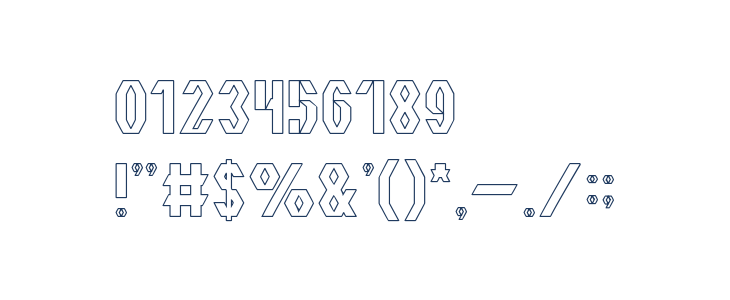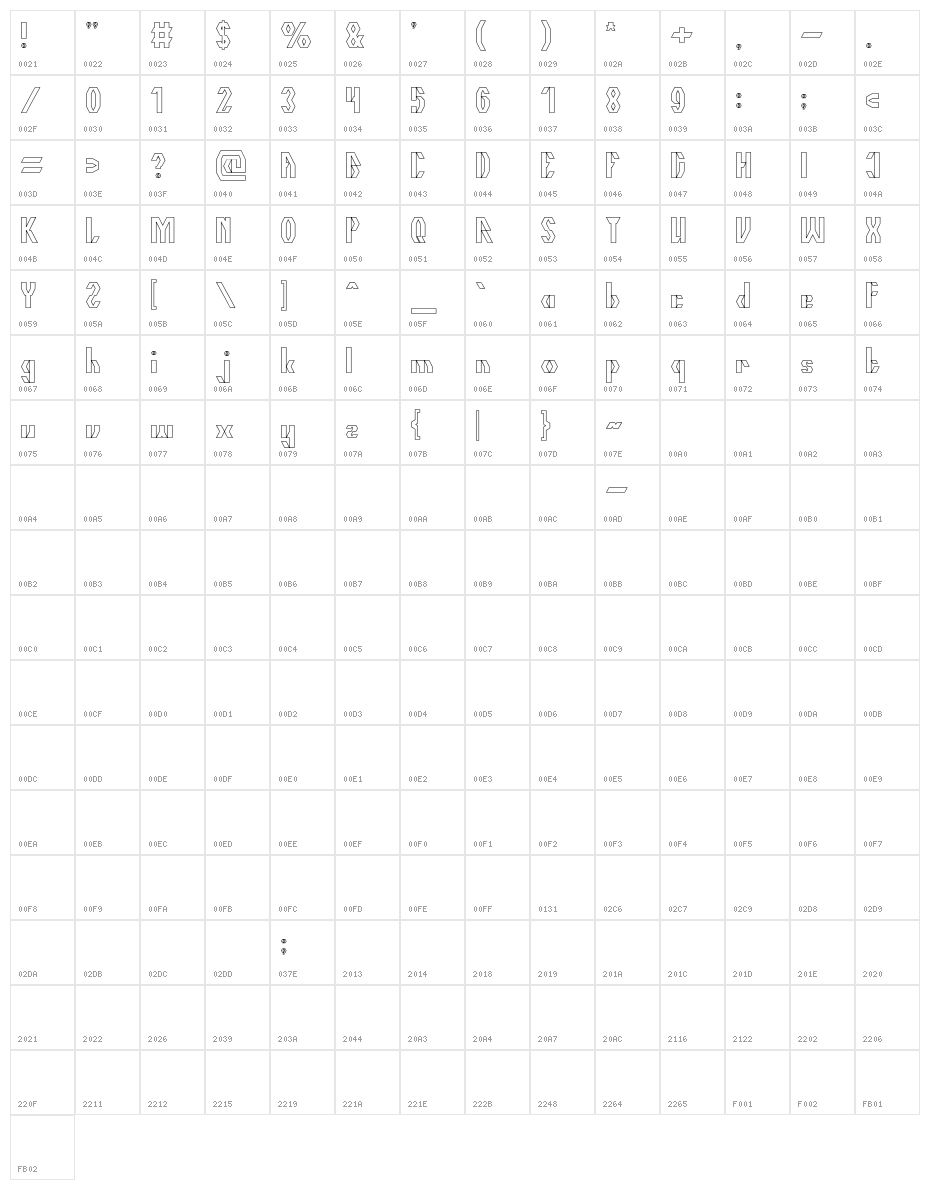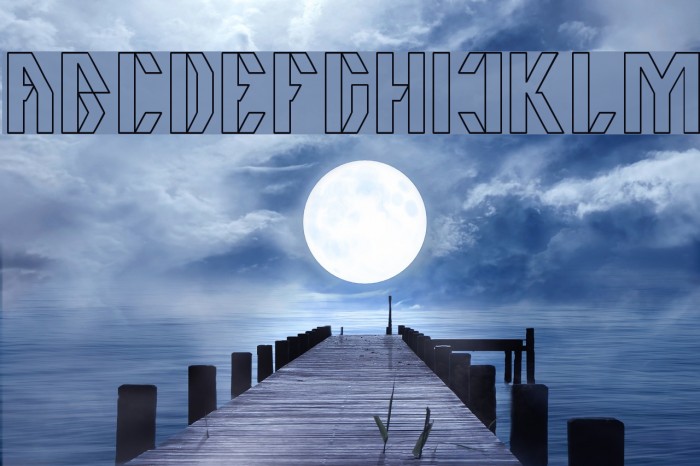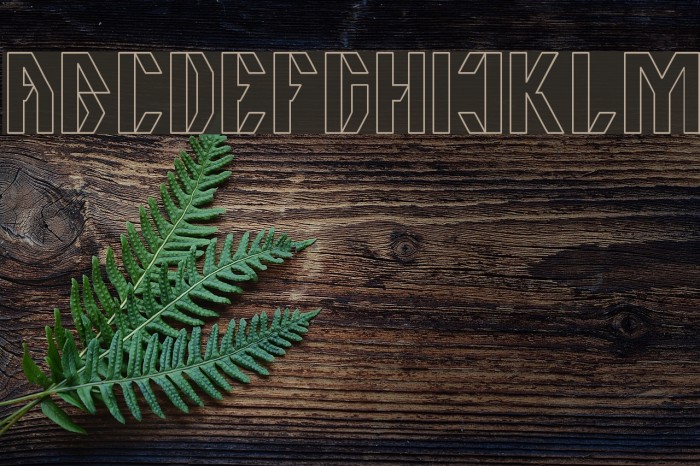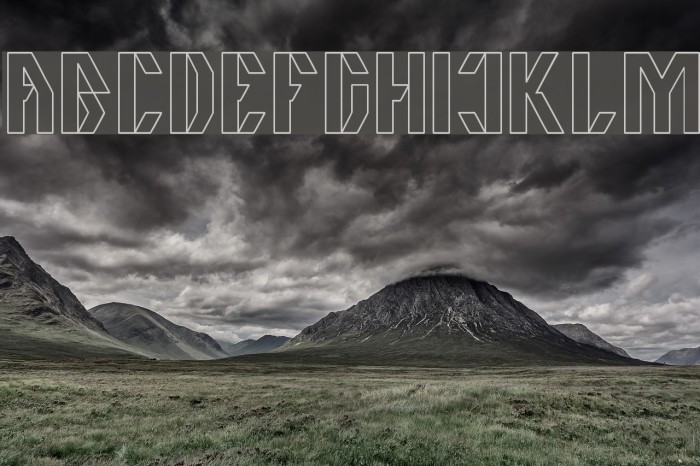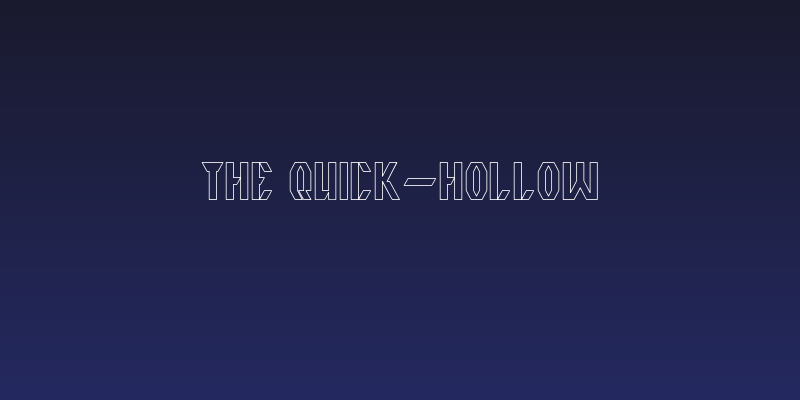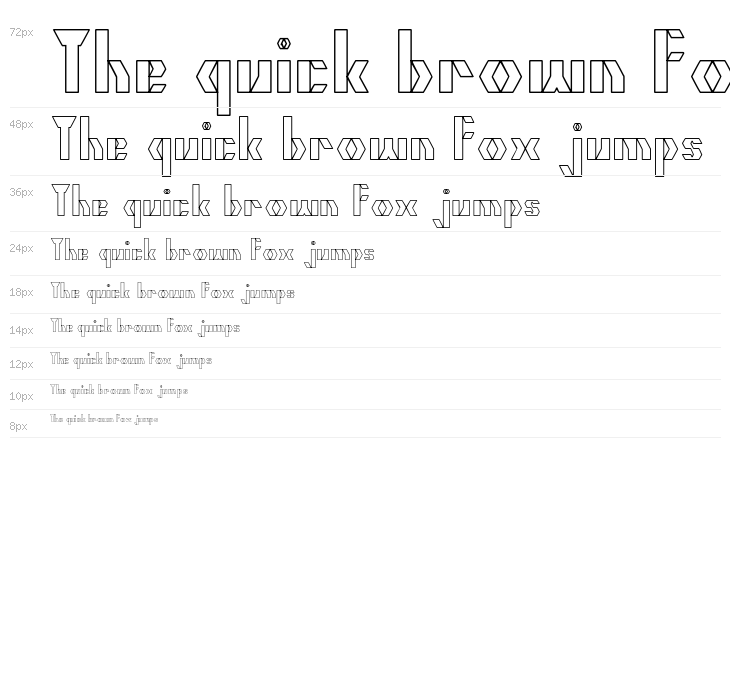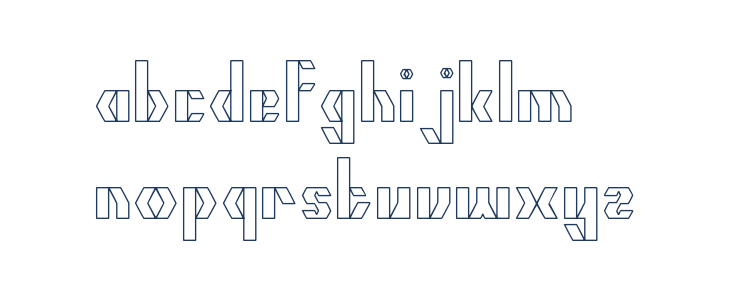
The Quick-Hollow Font
The Quick-Hollow Description
This font features a unique hollow design with geometric shapes and sharp angles, creating a futuristic and edgy appearance. The uppercase and lowercase letters maintain a consistent style, with each character formed by a series of straight lines and angles, giving it a distinct, almost architectural look. The numbers and special characters follow the same design principles, ensuring uniformity across the typeface. The hollow nature of the font adds an element of lightness and openness, making it stand out in any design context.
| Proposed Projects | Ideal for modern branding, tech-related projects, sci-fi themed designs, and eye-catching headlines. |